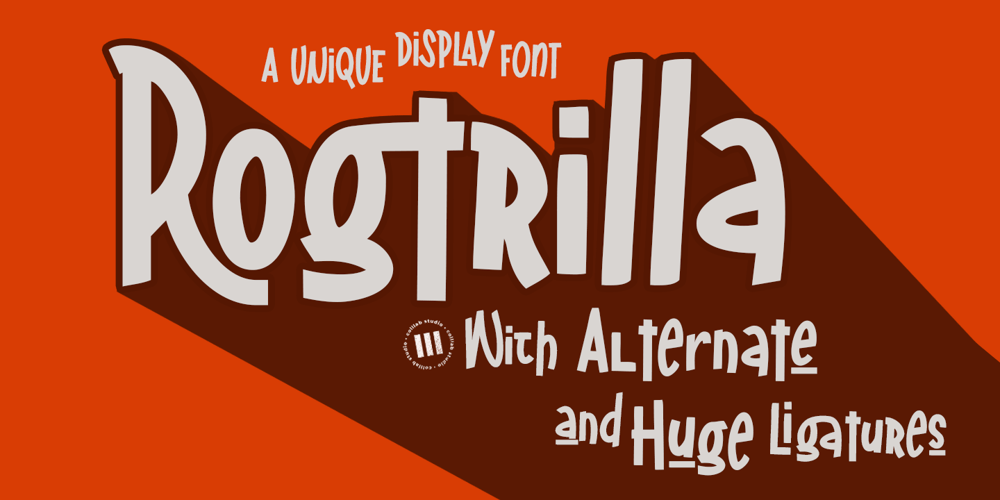
Rogtrilla Font Family was designed by Awaluddin Syarif and published by Colllab Studio. Rogtrilla contains 1 styles and family package options. Presenting Rogtrilla! A Unique Display Font with Alternates and Huge Ligatures. This font made with the perfect combination of each character. You can combine with alternates to get a unique combination. It looks original and can be used for all your project needs. Each glyph has its own uniqueness and when meeting with others will provide dynamic and pleasing proximity. This font can be used at any time and in any project. You can see in the presentation picture above, Rogtrilla looks unique, and so retro on design projects.So, Rogtrilla Font can’t wait to give its touch to all your design projects such as quotes, retro design, poster design, personal branding, promotional materials, website, logotype, product packaging, etc.WHAT’S INCLUDED?Rogtrilla Regular • It comes with uppercase, lowercase, ligatures, numeral, punctuation, symbols, Huge Ligatures, Alternates, and Standard Latin Multilingual Support (Afrikaans, Albanian, Catalan, Danish, Dutch, English, French, German, Icelandic, Indonesian, Italian, Malay, Norwegian, Portuguese, Spanisch, Swedish, Zulu, and More).A Million ThanksColllab Studio